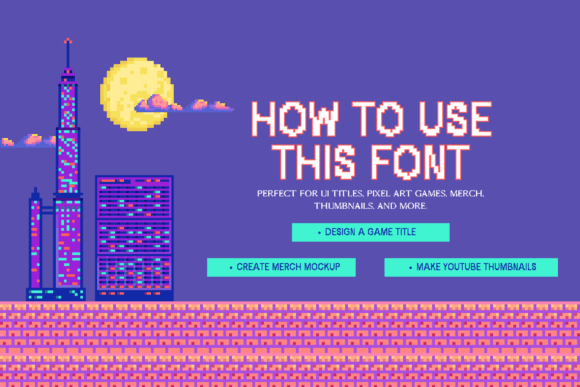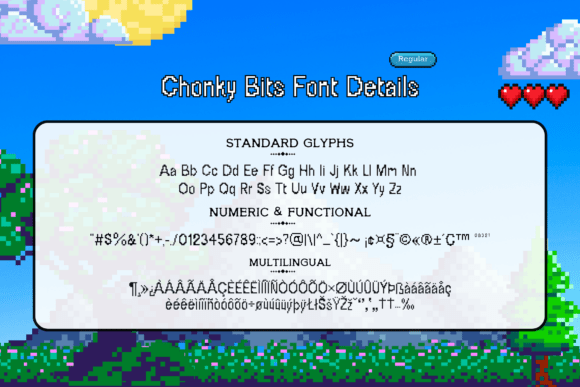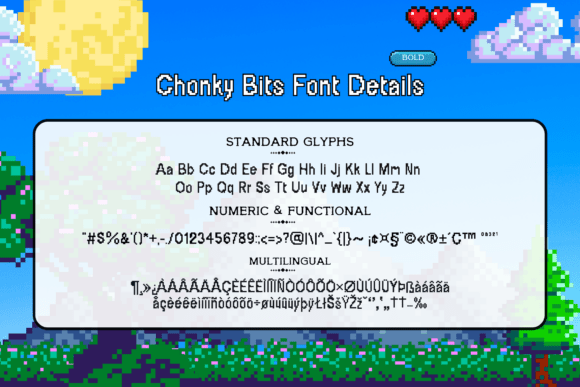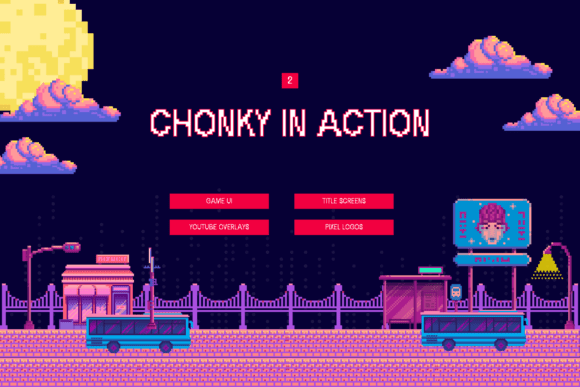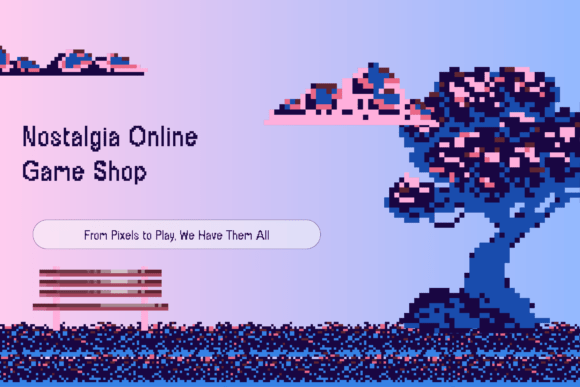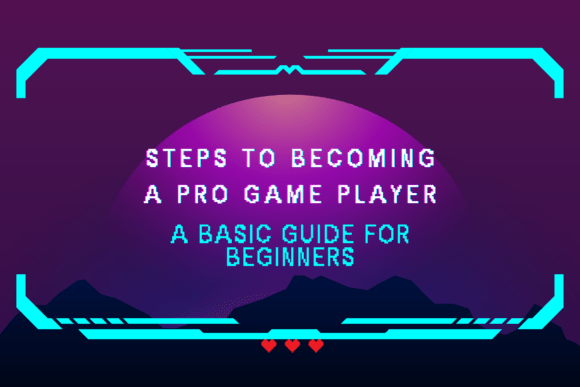
Discover the Retro Charm of Chonky Bits Font: The Ultimate Pixel Font for Creatives
Are you a game developer, designer, streamer, or nostalgic dreamer looking for a font that packs a punch and screams retro charm? Look no further than Chonky Bits, the bold, bubbly, and pixel-perfect font that’s about to become your new favorite go-to. Inspired by the golden age of gaming, Chonky Bits brings back the feel of old-school arcades with a modern, polished edge that’s sure to make your text stand out.
The Power of Bold & Chunky Typography
Chonky Bits is all about making a statement. Every character is thick, loud, and proud, making it perfect for titles, UI, and any design that needs to shout “look at me” in 8-bit style. The font’s bold and chunky design ensures that your text is not only eye-catching but also highly legible, even at small sizes. Whether you’re creating overlays, thumbnails, or merchandise, Chonky Bits is the perfect choice for designers who want to add a dash of retro flair to their work.
Retro-Inspired with a Modern Twist
Chonky Bits is crafted to mimic the pixel-perfect arcade fonts of the golden gaming age, but with a modern twist. The font’s retro-inspired design is optimized for readability on screen, making it perfect for game developers, streamers, and designers who want to create a nostalgic feel without sacrificing clarity. With Chonky Bits, you can bring back the feel of old-school arcades and add a touch of modern sophistication to your designs.
Clean Lines and Optimized Readability
One of the standout features of Chonky Bits is its clean lines and optimized readability. Even at small sizes, the font remains clear and legible, making it perfect for use in game interfaces, overlays, and other designs where space is limited. The font’s clean lines also ensure that it looks great on a variety of devices and screens, from desktop computers to mobile phones and tablets.
Two Weights for Maximum Flexibility
Chonky Bits comes in two weights: Regular and Bold. The Regular weight is perfect for clean game interfaces, while the Bold weight is ideal for when you want to make a maximum impact. With two weights to choose from, you can use Chonky Bits for a wide range of designs, from subtle and understated to bold and eye-catching.
Creative-Ready and Versatile
Chonky Bits is more than just a font – it’s a creative tool. Perfect for overlays, thumbnails, merchandise, pixel art games, and quirky branding, this font is designed to help you bring your ideas to life. Whether you’re a game developer, designer, or streamer, Chonky Bits is the perfect choice for anyone who wants to add a touch of retro charm to their work.
A Friendly Vibe that’s Playful, Not Blocky
Unlike some other pixel fonts, Chonky Bits has a friendly vibe that’s playful, not blocky. The font’s design is ideal for fun and welcoming designs, making it perfect for use in children’s games, educational materials, and other projects where a lighthearted tone is desired. With Chonky Bits, you can create designs that are both nostalgic and approachable.
Why You’ll Love Chonky Bits
- Bold & Chunky: Every character is thick, loud, and proud – perfect for titles and UI.
- Retro-Inspired: Crafted to mimic pixel-perfect arcade fonts from the golden gaming age.
- Clean Lines: Clear even at small sizes, optimized for readability on screen.
- Two Weights Included: Use Regular for clean game interfaces and Bold when you want max impact.
- Creative-Ready: Perfect for overlays, thumbnails, merch, pixel art games, and quirky branding.
- Friendly Vibe: Feels playful, not blocky – ideal for fun and welcoming designs.
In conclusion, Chonky Bits is a must-have font for any creative looking to add a touch of retro charm to their work. With its bold and chunky design, retro-inspired aesthetic, clean lines, and optimized readability, this font is perfect for game developers, designers, streamers, and nostalgic dreamers alike. So why wait? Download Chonky Bits today and start creating designs that are both nostalgic and eye-catching!